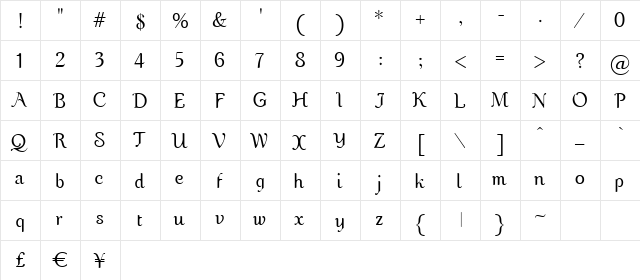
COM4t Nuvu Regular Regular
Design Context for COM4t Nuvu Regular Typeface
COM4t Nuvu Regular offers clean, dependable letterforms without strong stylistic allegiance, making it a practical choice for designers who need flexibility.
Pro Tip: Use COM4t Nuvu Regular in both headline and body roles to test its range before committing to a single application.